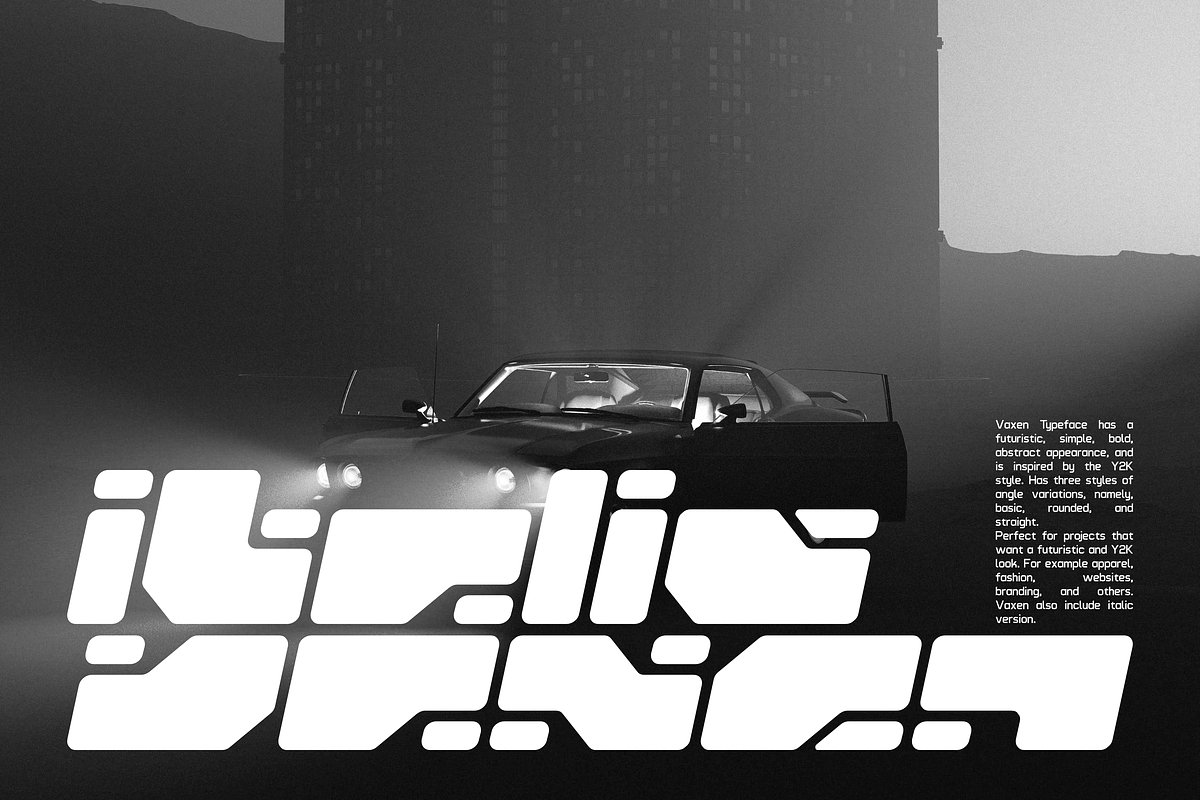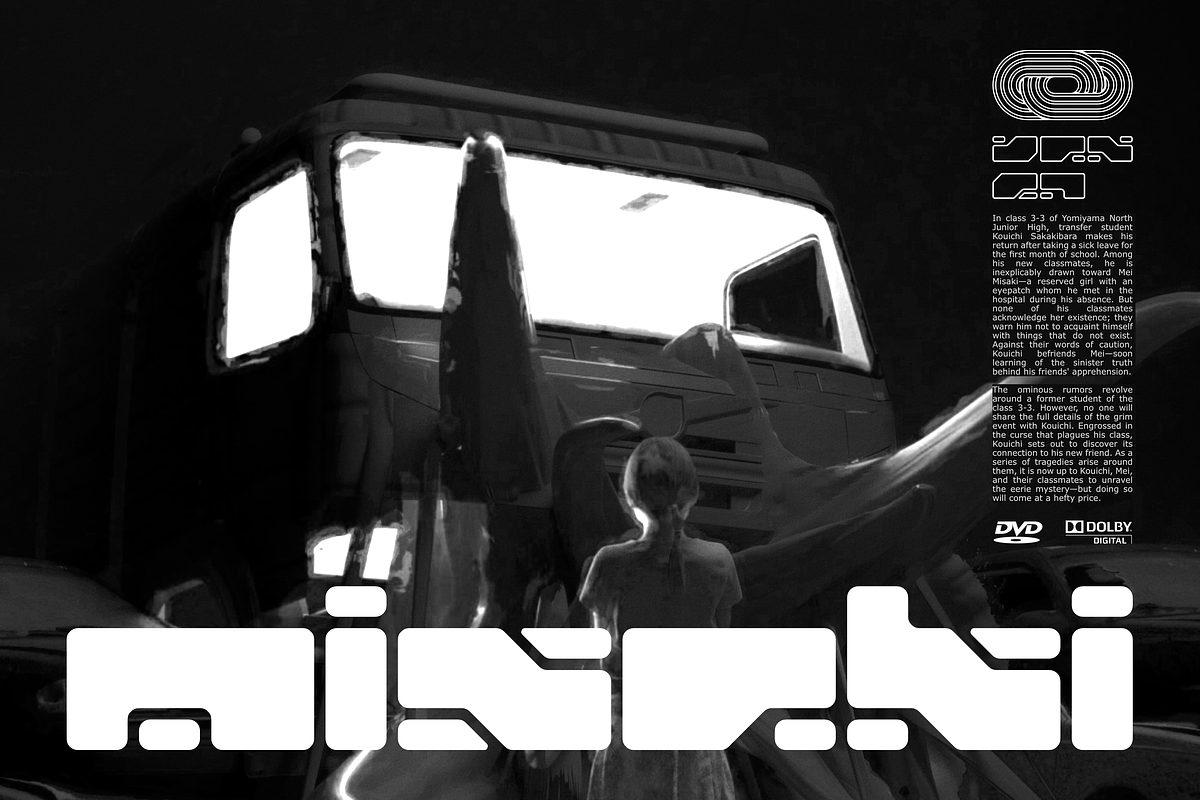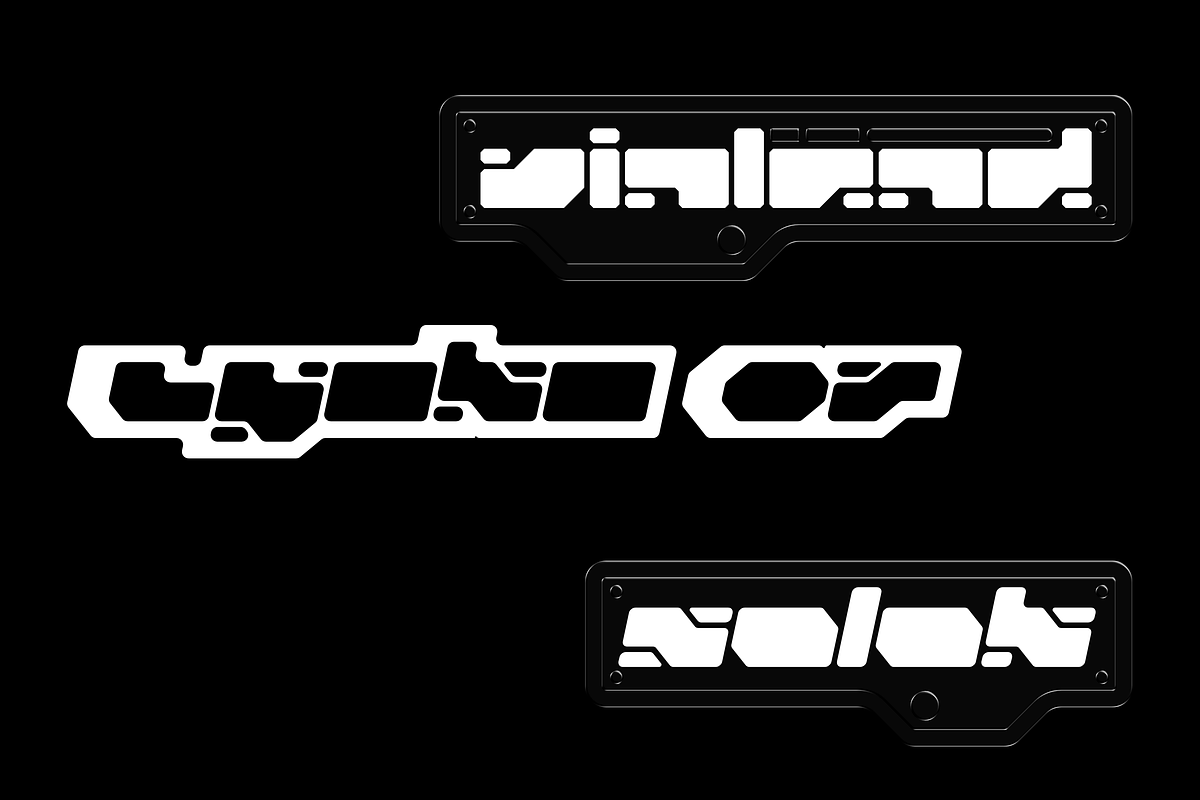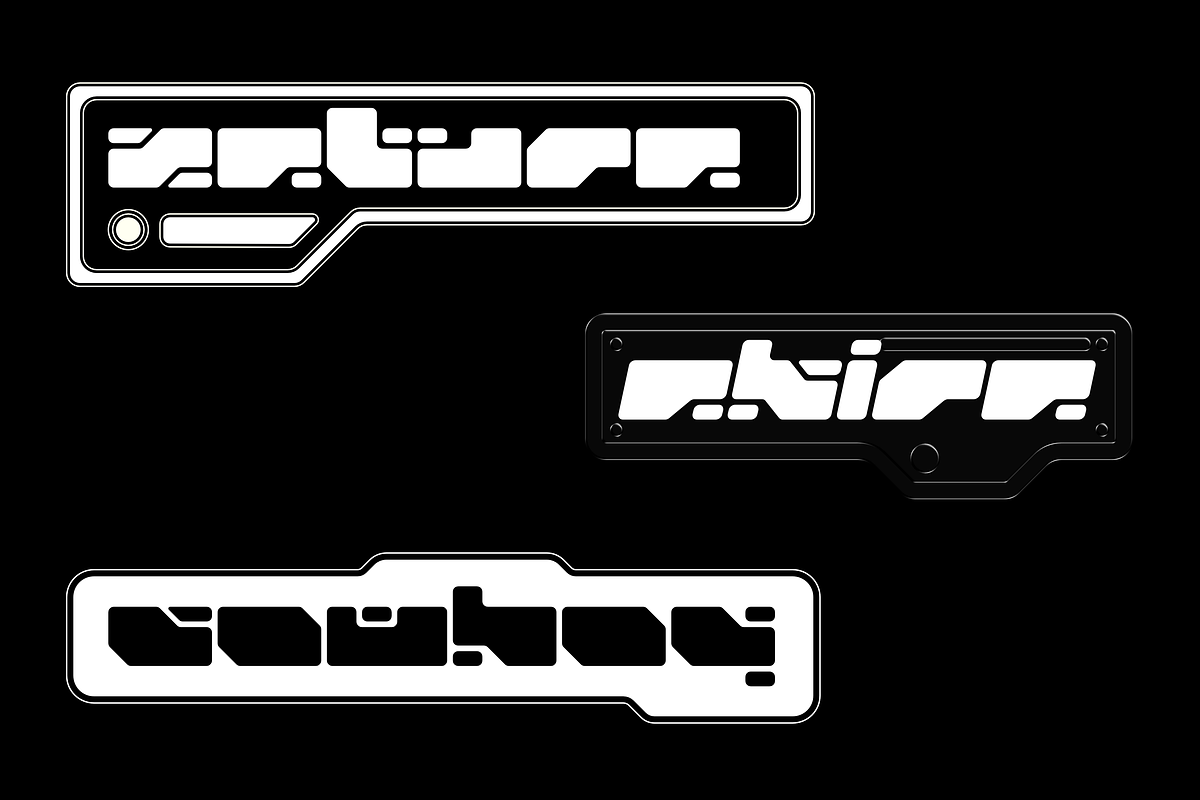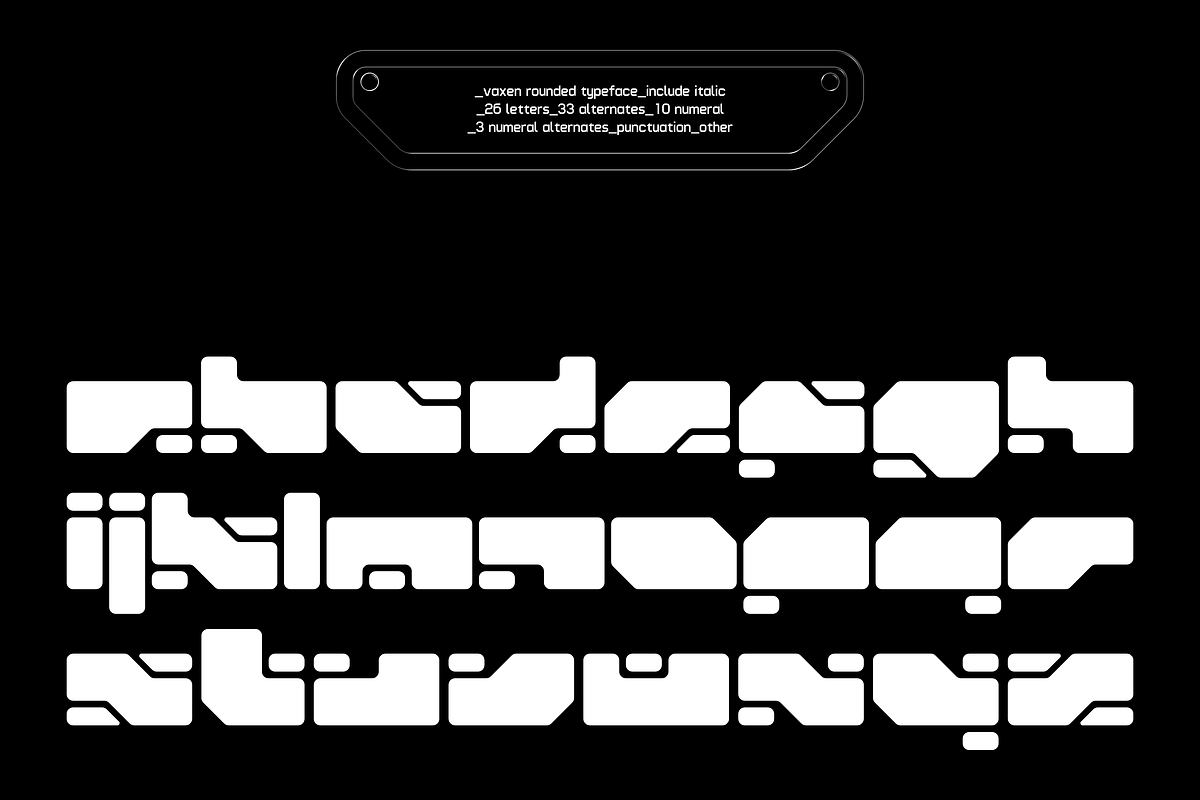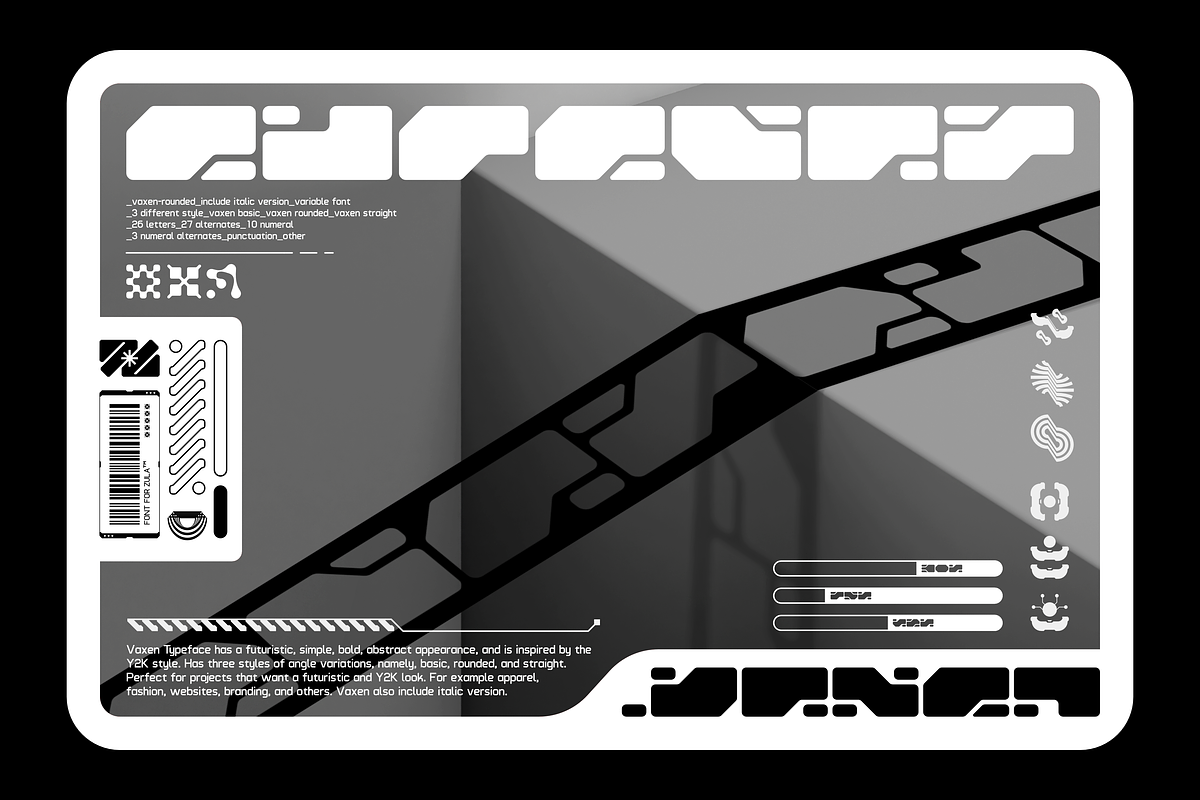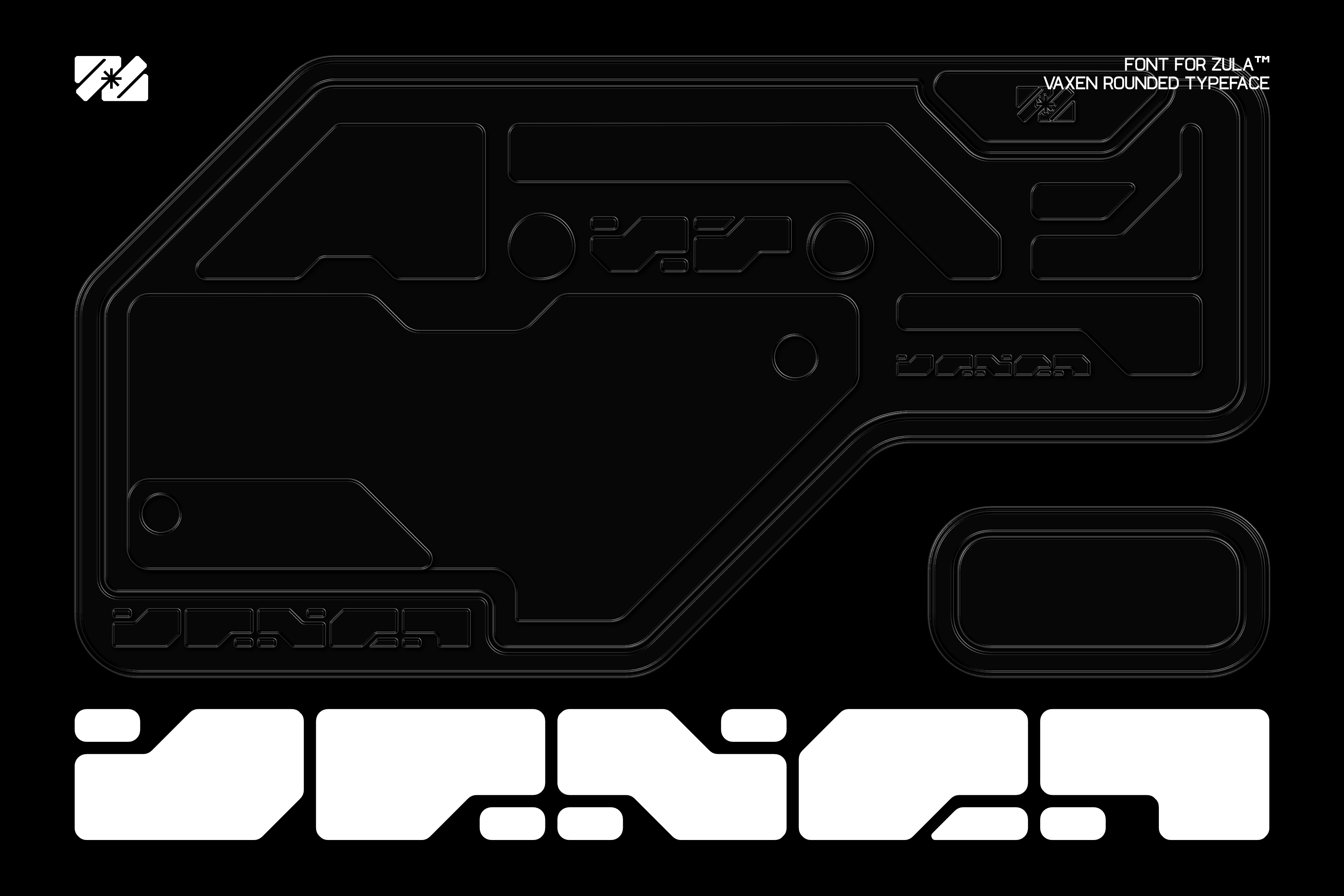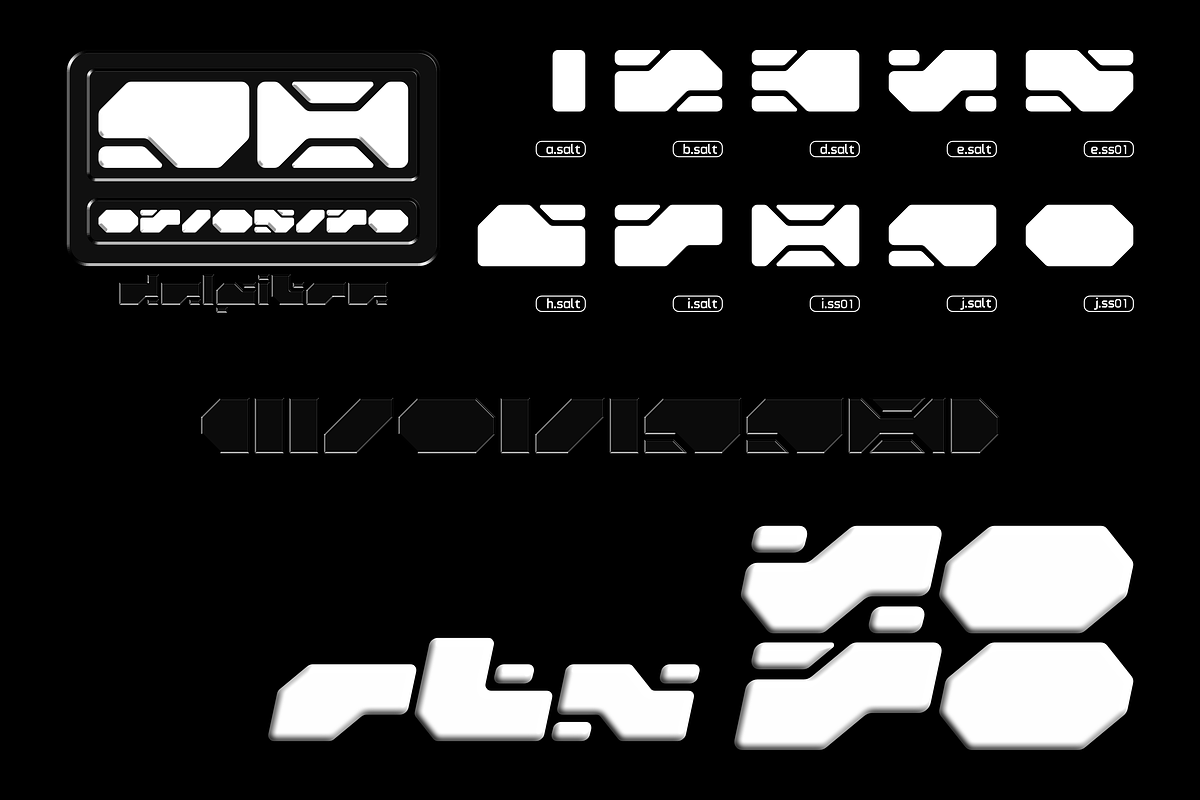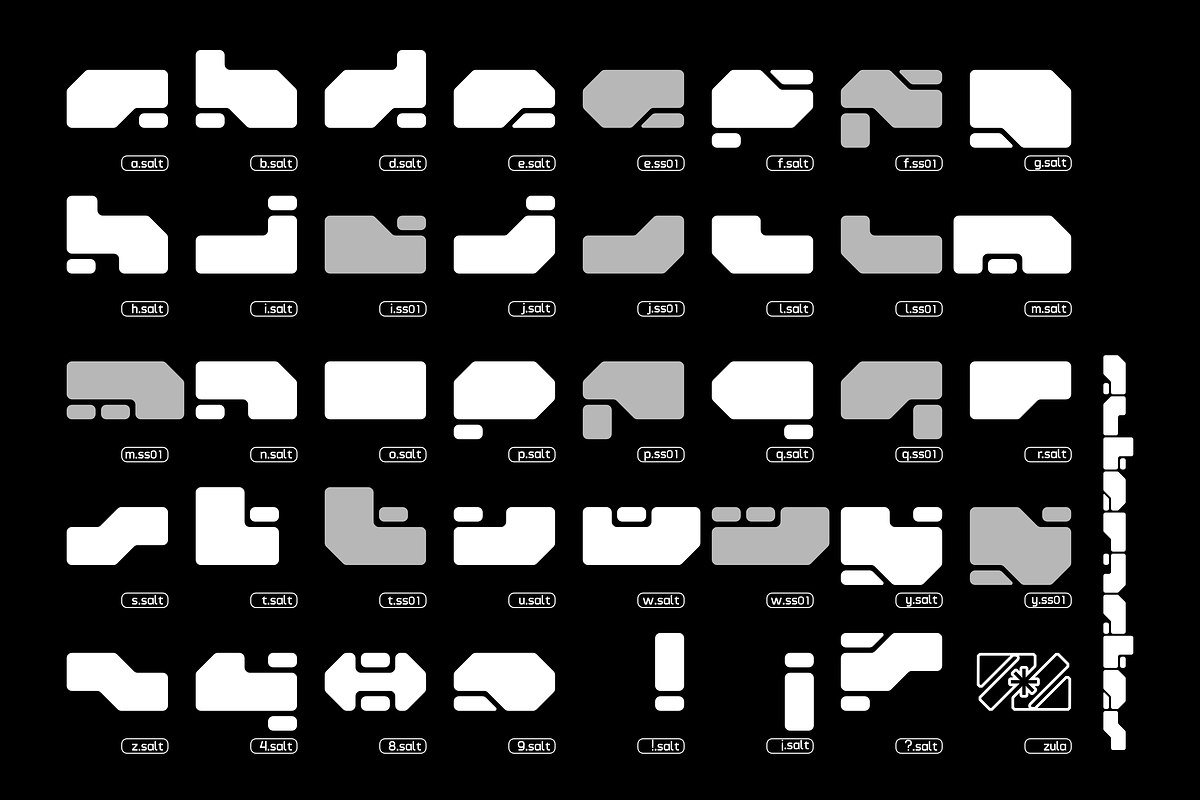
Vaxen-Rounded Variable Font
Vaxen-Rounded Typeface is a Variable Font that has a futuristic, simple, bold, abstract appearance, and is inspired by the Y2K style. Perfect for projects that want a futuristic and Y2K look. For example apparel, fashion, websites, branding, and others. Vaxen also includes an Italic style.
Vaxen typeface has :
- Italic Style Include
- 26 Letters
- 33 Alternates
- 10 Numeral
- 3 Numeral alternates
- other